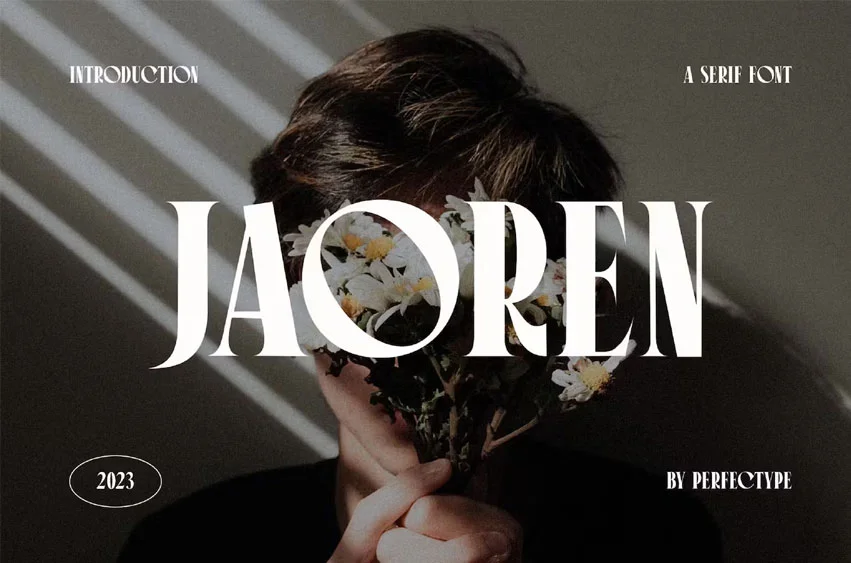
Jaoren Font
Jaoren Font Elegant Serif Font Typeface inspired by the famous minimalist logo perfect for the purposes of designing templates, brochures, videos, advertising branding, logos, invitation, layout design, elegant crafting, beauty design and other